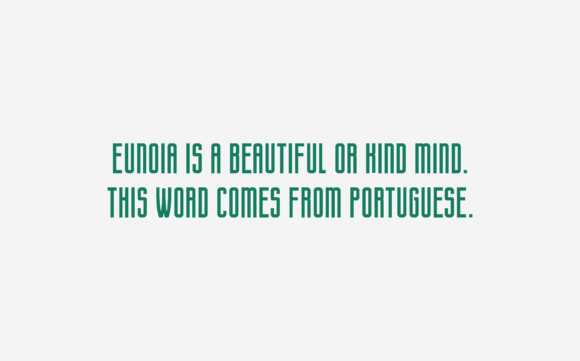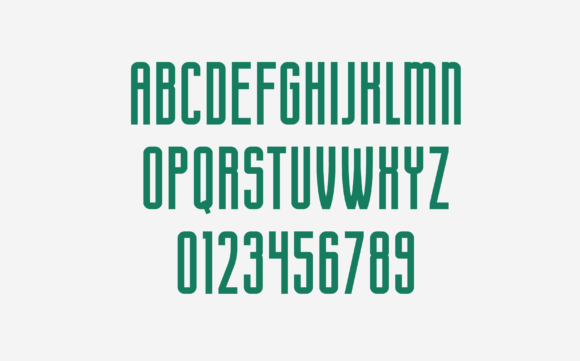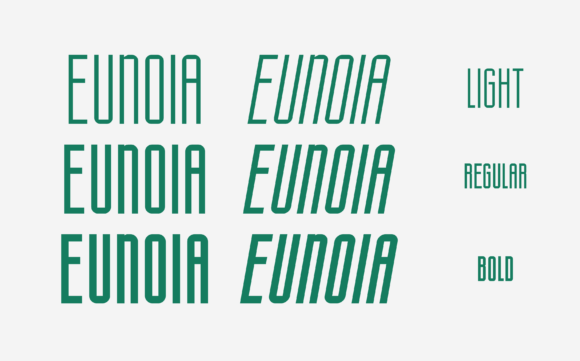
Introduction to Eunoia Font
Eunoia is a minimal, neat and clean sans serif font.
Key Features of Eunoia Font
Why Choose Eunoia Font?
Eunoia Font offers exceptional quality and versatility, making it a valuable addition to your design toolkit. Whether you’re creating for personal projects or commercial use, Eunoia Font delivers professional results.